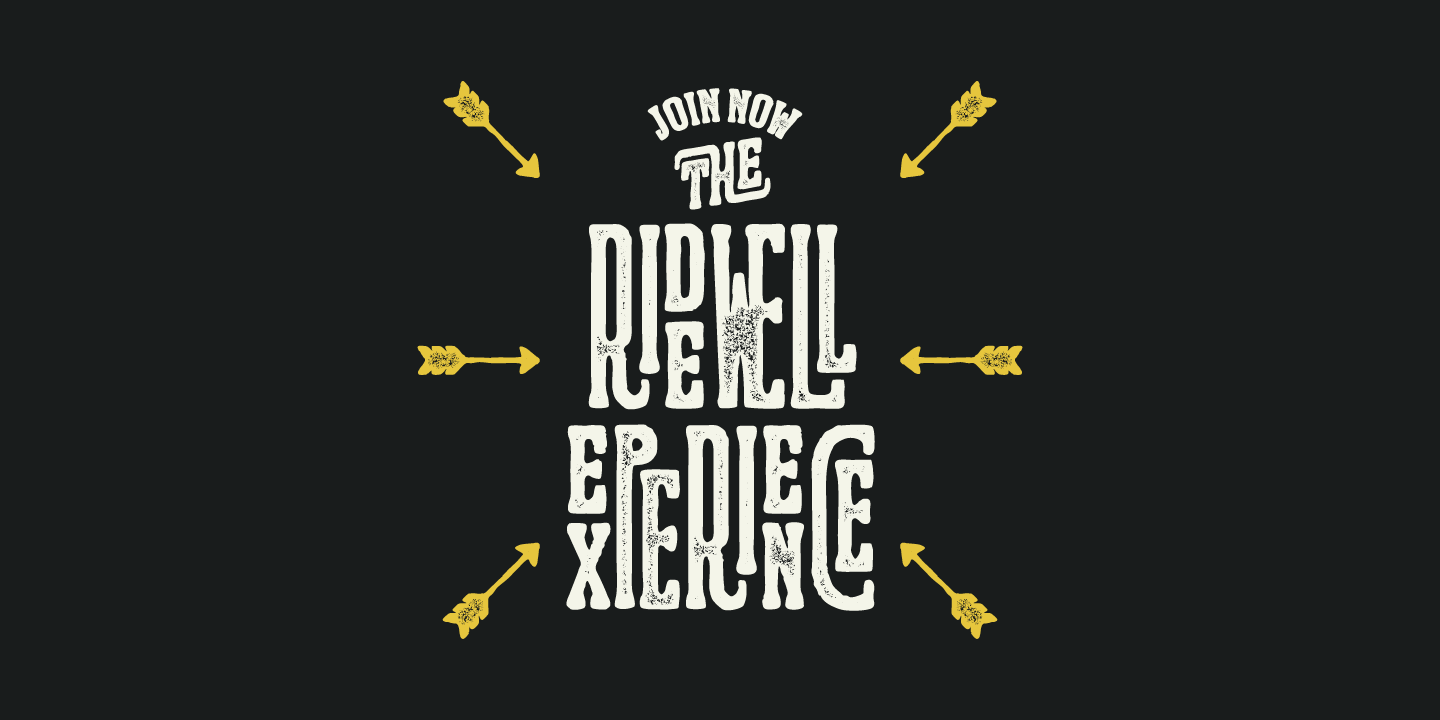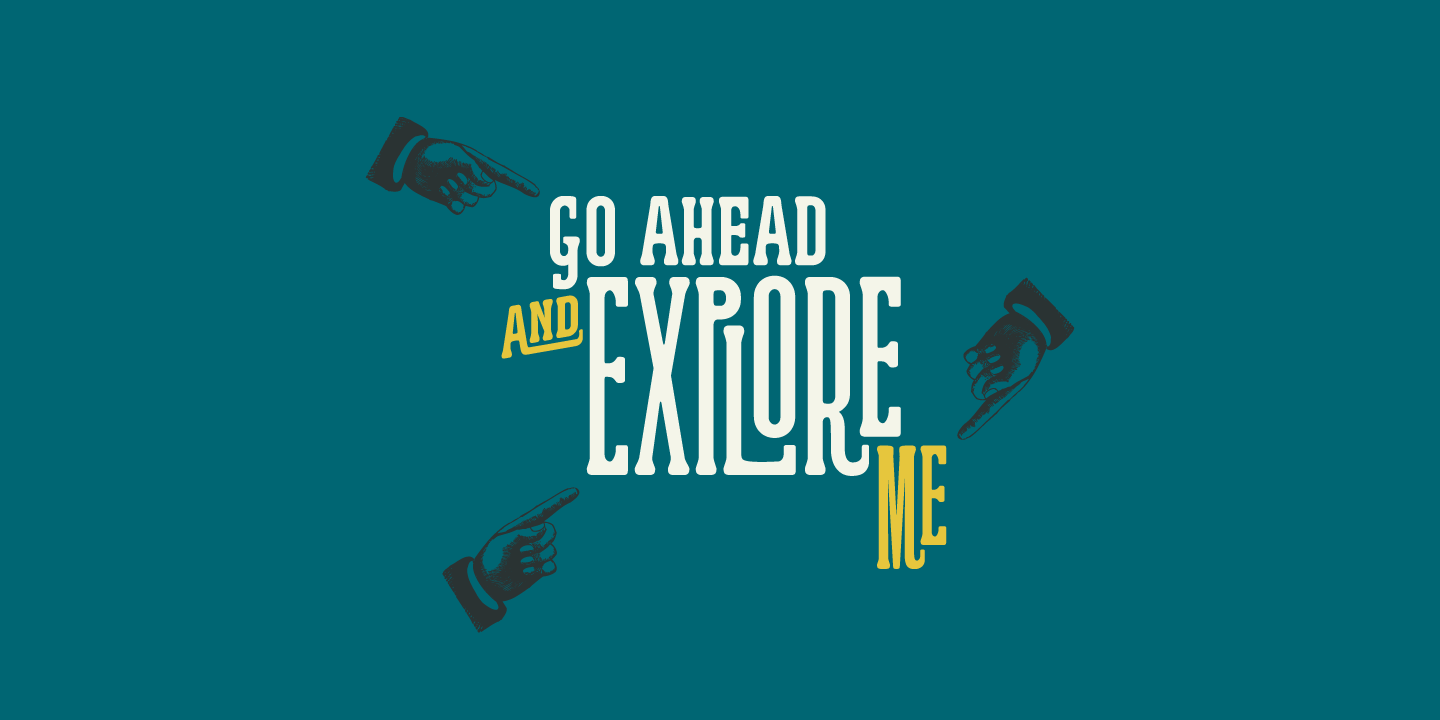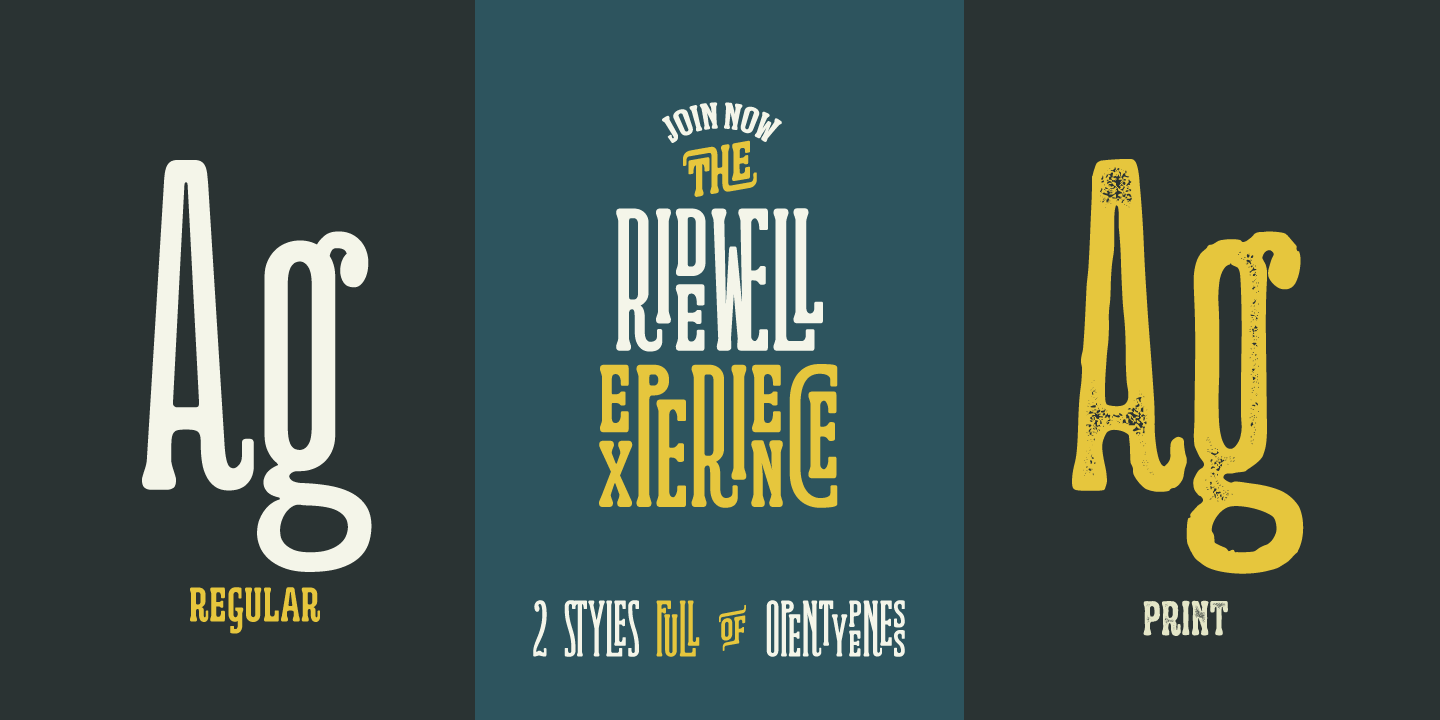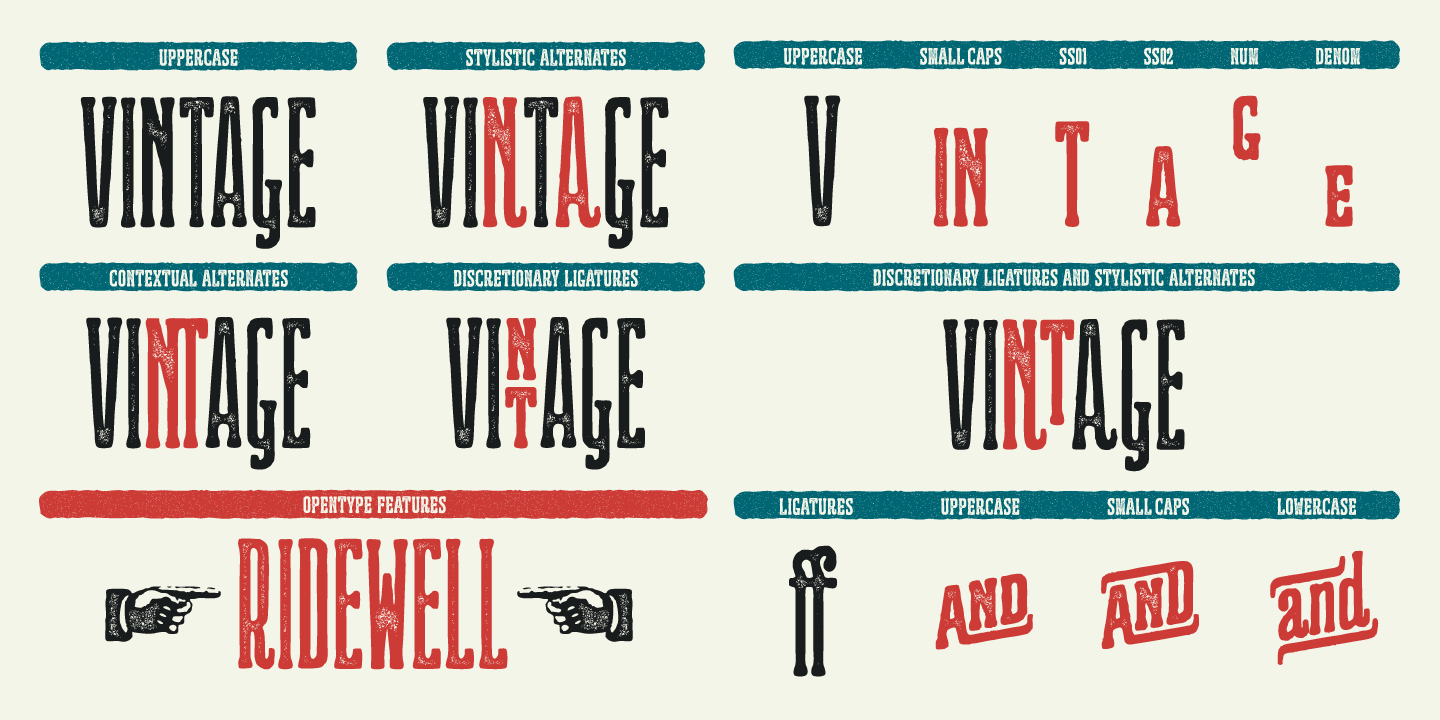
About Ridewell
Ridewell is a wood type inspired typeface filled with amazing opentype features. It has a wonderfully warm and letterpress vintage look and it comes in two styles, a regular and a printed/weathered version. Both styles feature a full uppercase and lowercase…